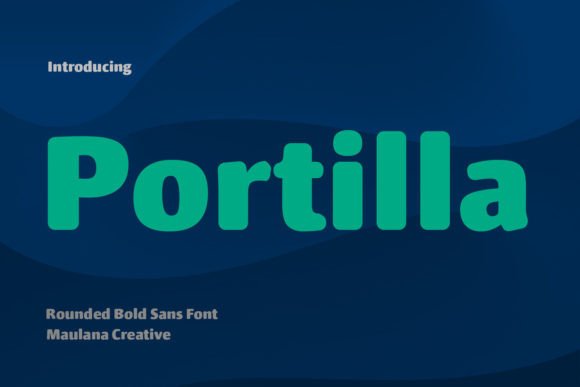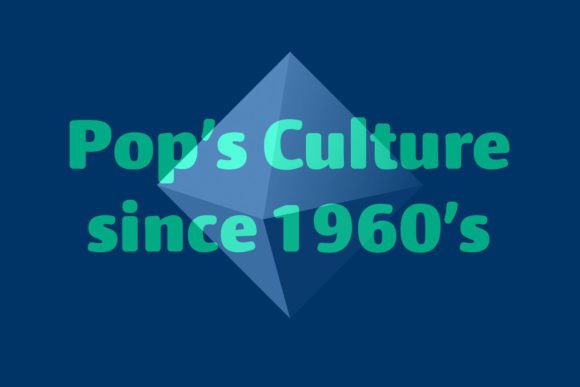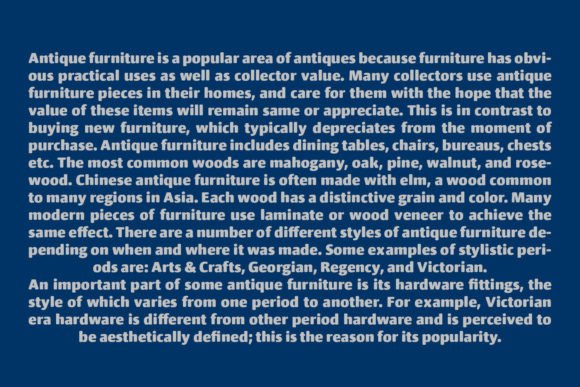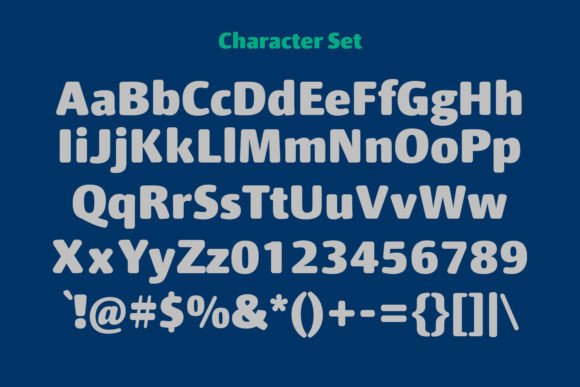
Portilla Rounded Bold Font
About the Portilla Rounded Bold Font
Meet Portilla Rounded Bold Font, a stunning font that brings a touch of elegance and professionalism to any design. Portilla is a modern round sans serif font. Bold stroke, fun character with a bit of ligatures and alternates. To give you an extra creative work. Portilla font support multilingual, more than 100+ language. This font is good for logo design, Social media, Movie Titles, Books Titles, a short text even a long text letter and good for your secondary text font with script or serif. Make a stunning work with Portilla font.
Portilla Rounded Bold thrives in applications requiring a strong visual presence. Headlines, branding elements (especially logos and short taglines), posters, and short-form social media content are ideal uses. Its bold strokes and playful character make it unsuitable for lengthy body text or UI elements where readability is paramount; the rounded forms might hinder quick comprehension in extended passages.
For optimal visual harmony, pair Portilla with a clean sans-serif like Lato for a modern feel, or a classic serif such as Garamond for a sophisticated contrast. A delicate script font could add a touch of elegance, while a geometric sans-serif would heighten the modern, bold impression.
Portilla projects a confident, friendly, and slightly playful personality. It’s well-suited for brands aiming for a bold, approachable image—think children’s products, playful fashion, or creative agencies seeking a vibrant identity. Avoid using it for brands requiring a serious, minimalist, or highly formal aesthetic.
Portilla Rounded Bold Font Usage Examples
Portilla Rounded Bold Font Example